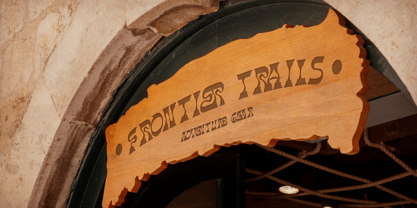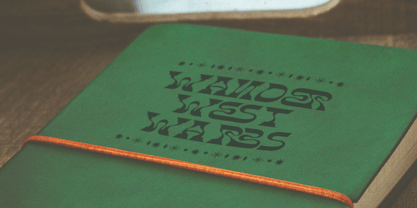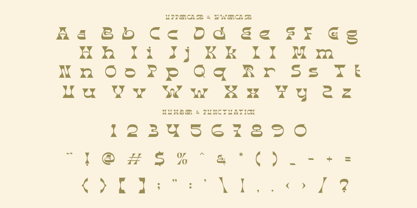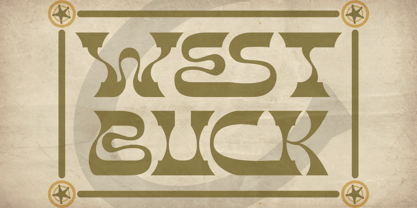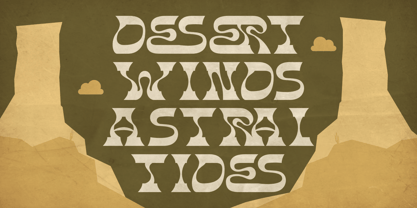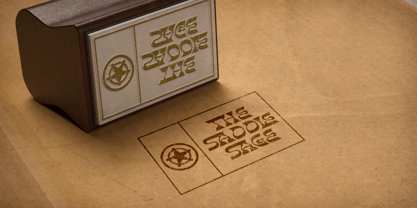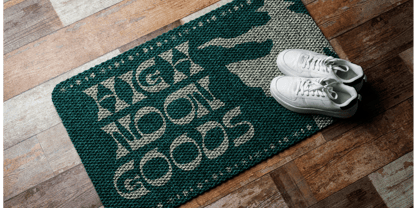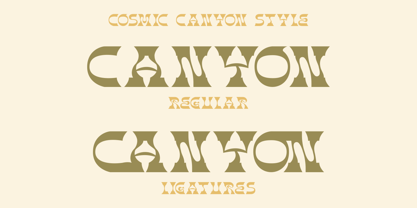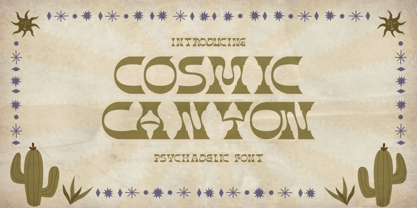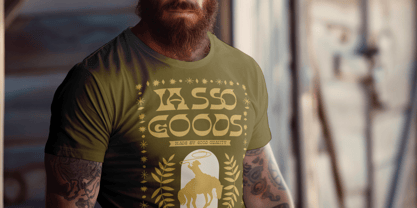
Cosmic Canyon
Step into a world where desert mysticism collides with retro counterculture—introducing Cosmic Canyon, a psychedelic font inspired by vintage western signage and the bold spirit of the 1970s. This font brings together fluid letterforms and geometric symmetry with organic distortions, mimicking the mirage-like heatwaves of canyon landscapes. Each character is uniquely crafted with exaggerated curves, warped stems, and melting silhouettes, creating a trippy yet balanced aesthetic that evokes freedom, rebellion, and handcrafted nostalgia. The textured, earthy tones used in the previews emphasize its versatility in both digital and print environments.
Cosmic Canyon is ideal for branding projects that demand a vintage-meets-modern twist. It thrives in logos, poster titles, music covers, stickers, apparel labels, packaging, and editorial headlines. Whether you're designing for a retro desert festival, an indie film title, or a western-style gift card, this typeface adds instant personality. The set includes uppercase characters, stylized alternates, and graphic-friendly display weight—delivering maximum impact with minimal effort. Let your typography tell stories from a wild, whimsical frontier.